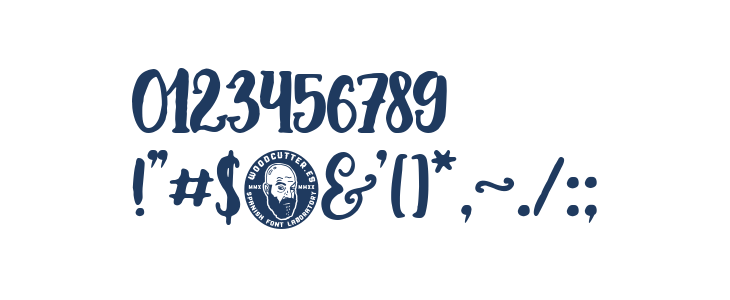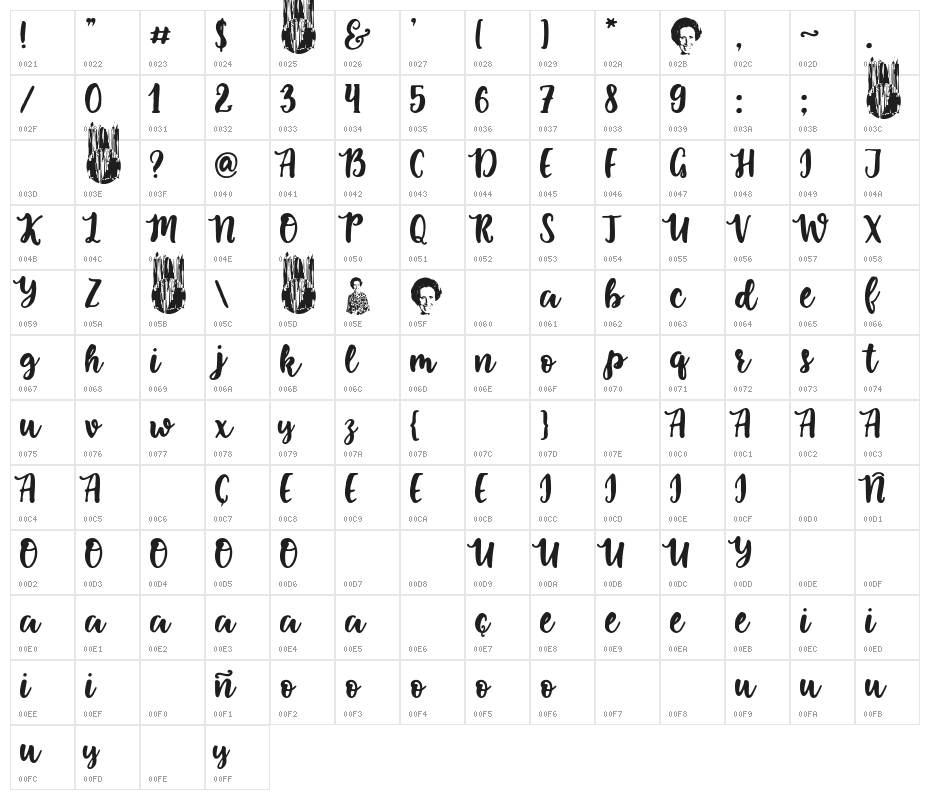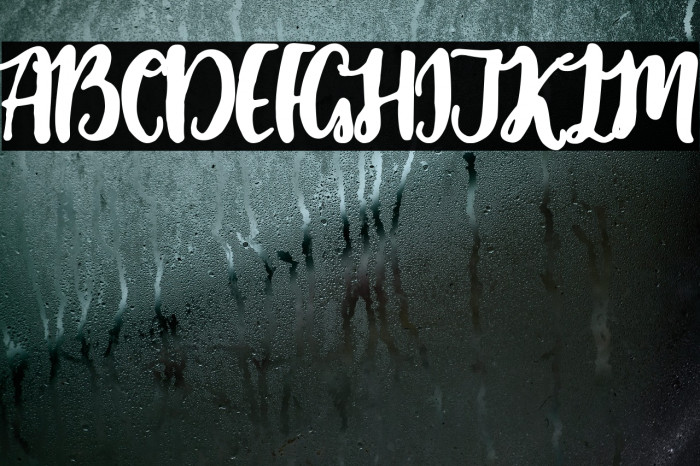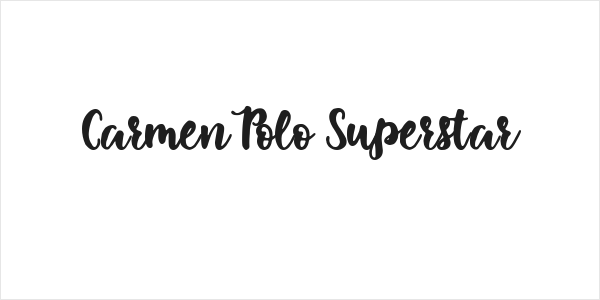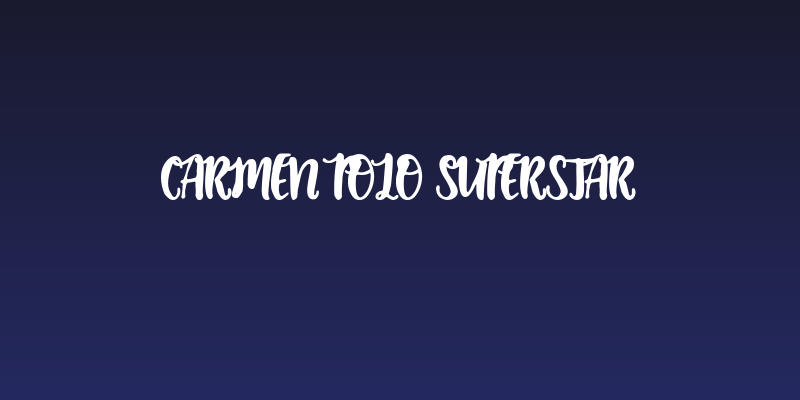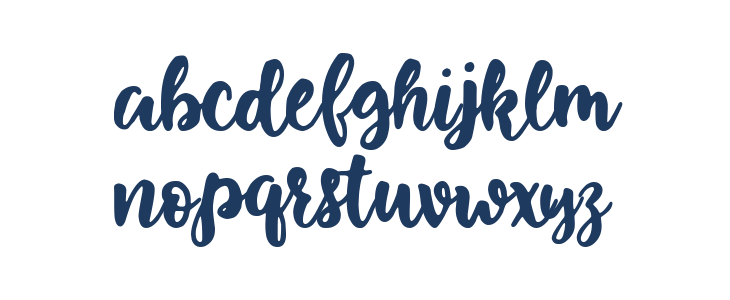
Carmen Polo Superstar Font
Carmen Polo Superstar Description
This font exhibits a bold and expressive handwritten style, characterized by its thick, flowing strokes and dynamic curves. The uppercase letters are particularly striking, with a playful yet sophisticated flair that captures attention. The lowercase letters maintain a consistent style, offering a smooth and cohesive look. Numbers and special characters are crafted with the same boldness, ensuring uniformity across all elements. The font's overall appearance is both modern and artistic, making it suitable for creative projects that require a touch of personality and flair.
Overall StyleModern, Artistic
Use CaseLogos, Posters, Invitations
Proposed ProjectsIdeal for branding, logos, posters, and invitations where a bold, artistic touch is desired.